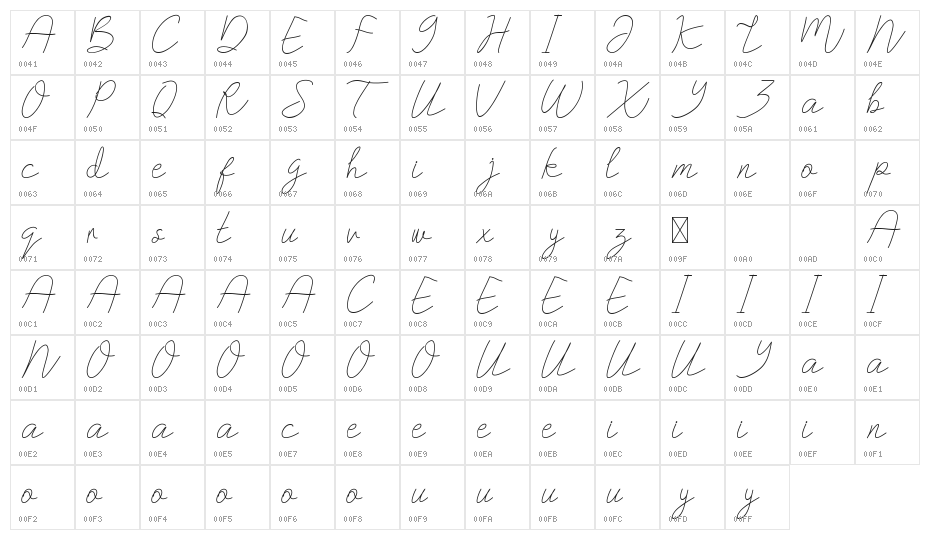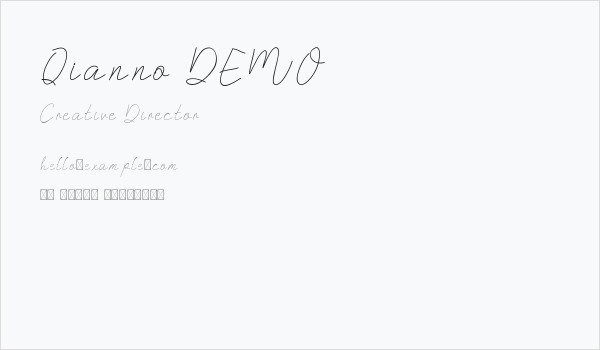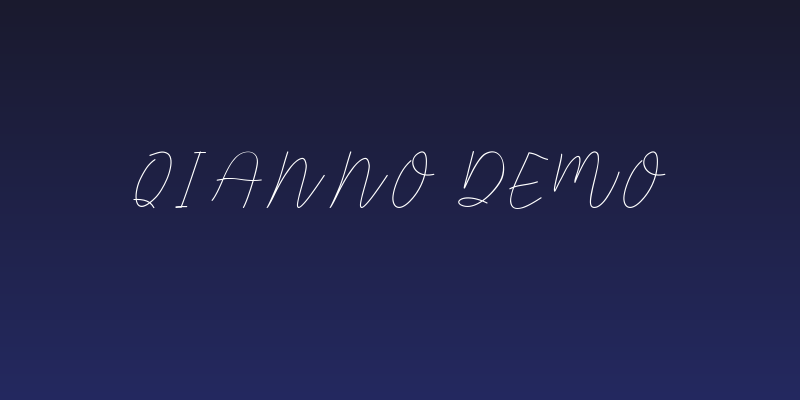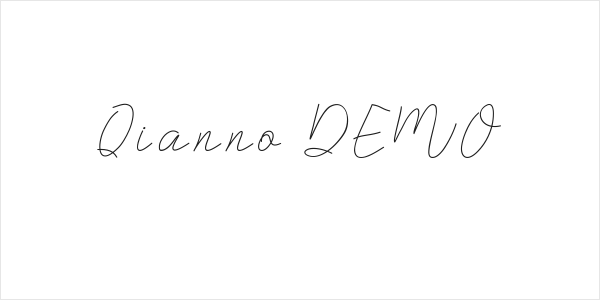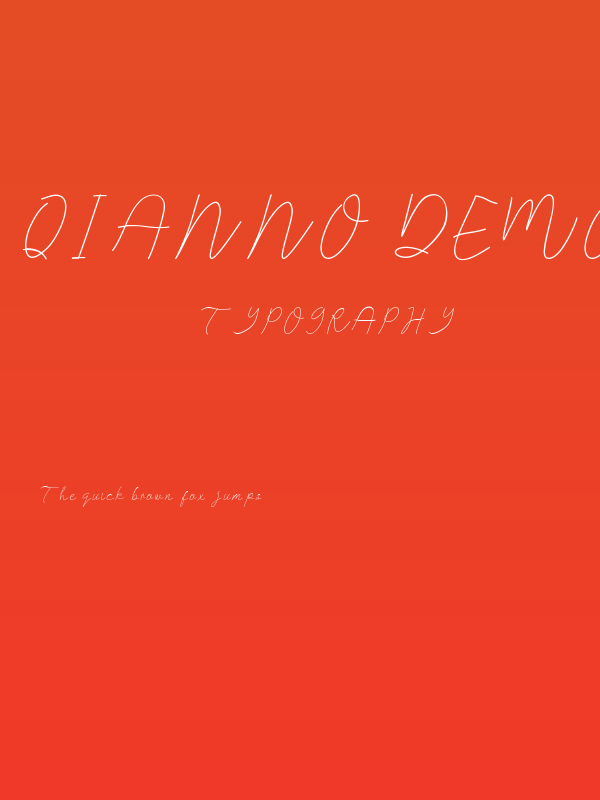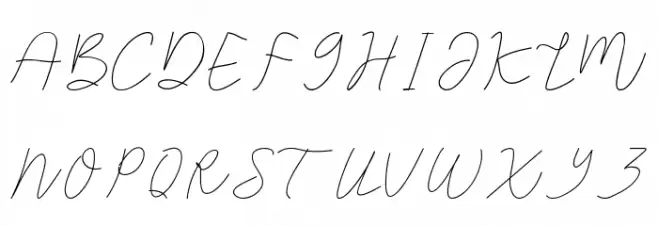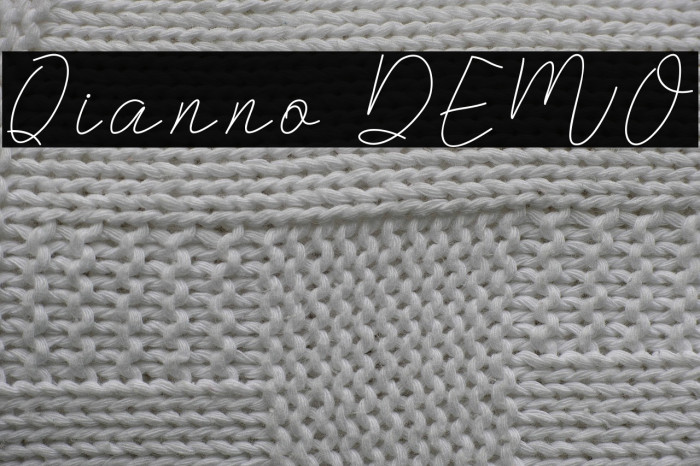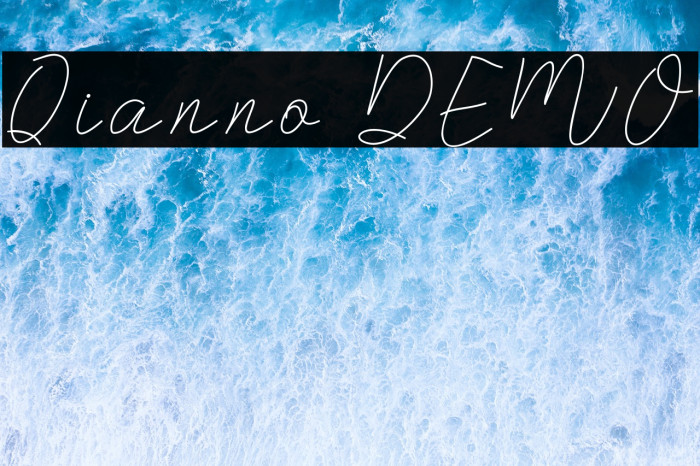
Qianno DEMO Font
This font features a delicate and flowing script style that mimics elegant handwriting. The characters are connected with smooth, continuous strokes, giving it a fluid and graceful appearance. The uppercase letters are slightly more ornate, with subtle flourishes that add a touch of sophistication. The lowercase letters maintain a consistent style, with rounded forms and gentle curves. The numerals and special characters are designed to match the overall aesthetic, ensuring a cohesive look across all text. This font is ideal for projects that require a personal, handwritten touch, such as invitations, greeting cards, or branding materials.
| Use Case | Logos, Invitations, Greeting cards |
| Proposed Projects | Ideal for wedding invitations, personal branding, greeting cards, and elegant stationery. |